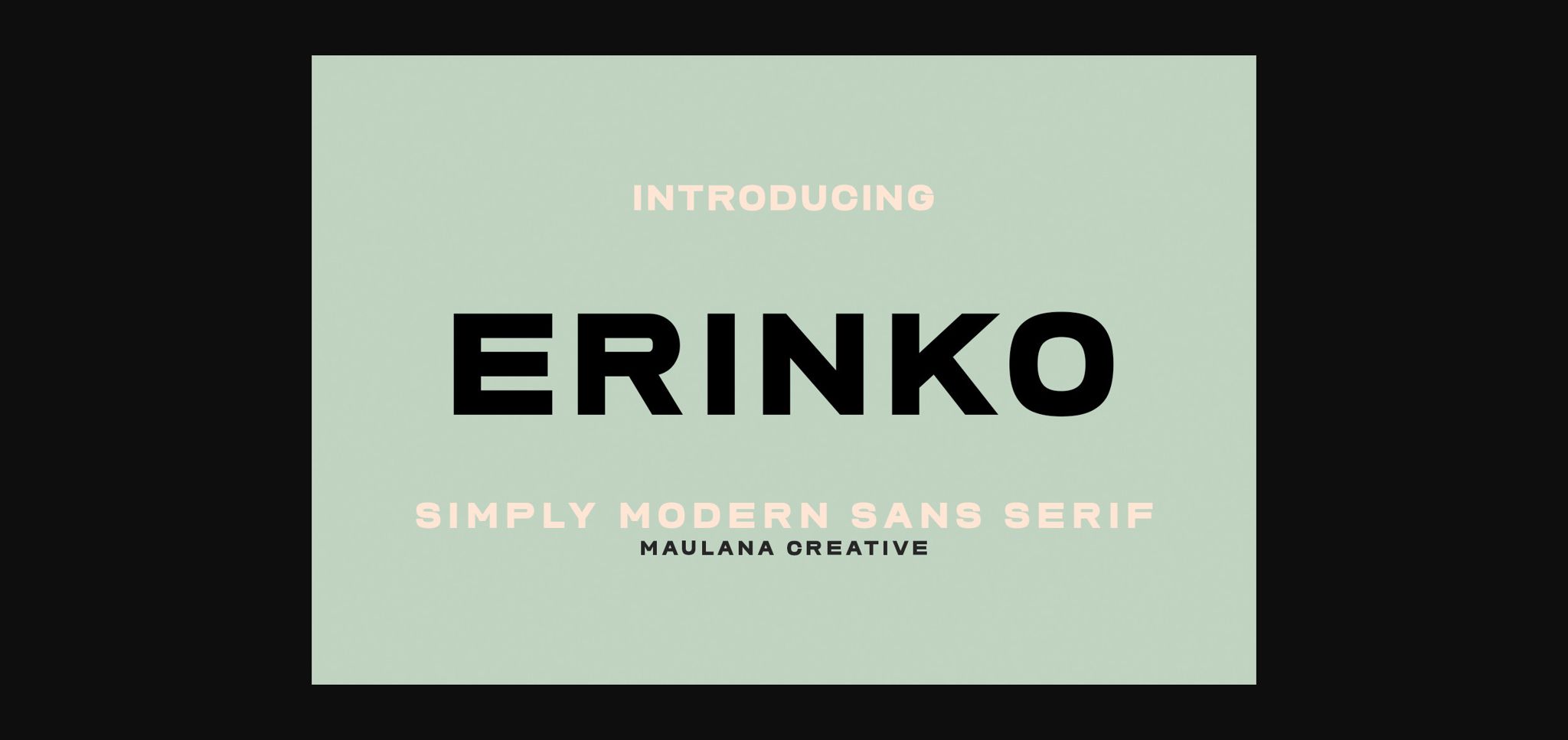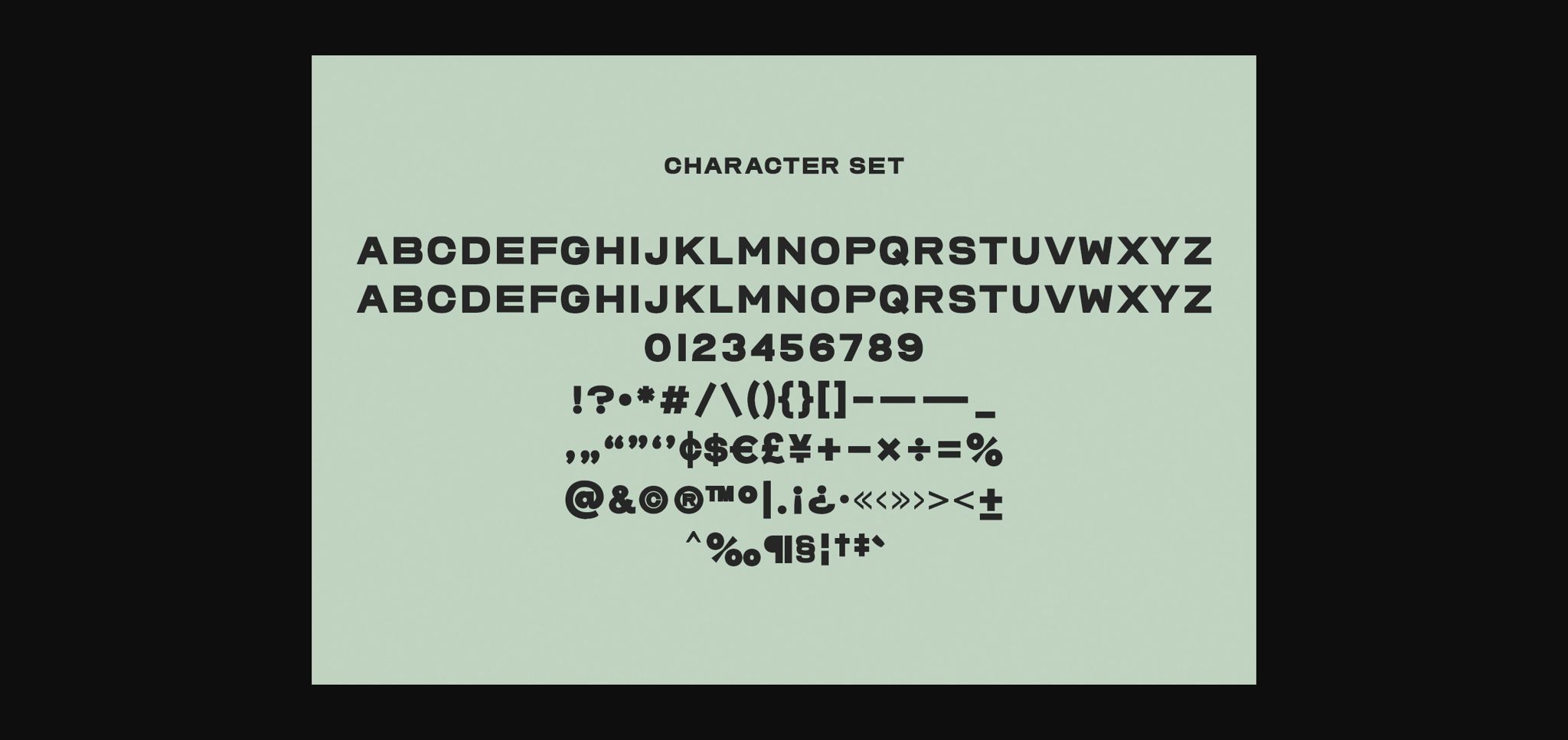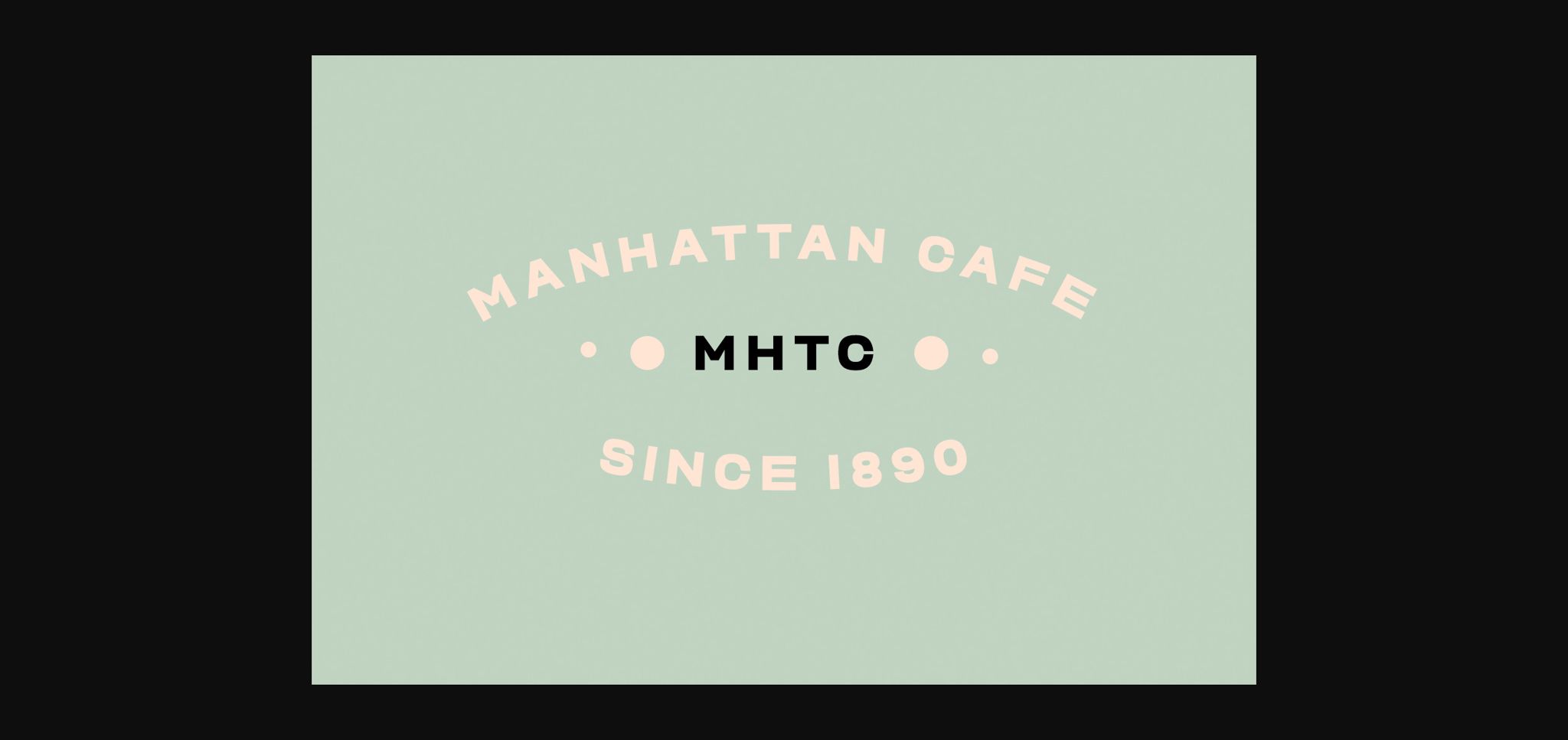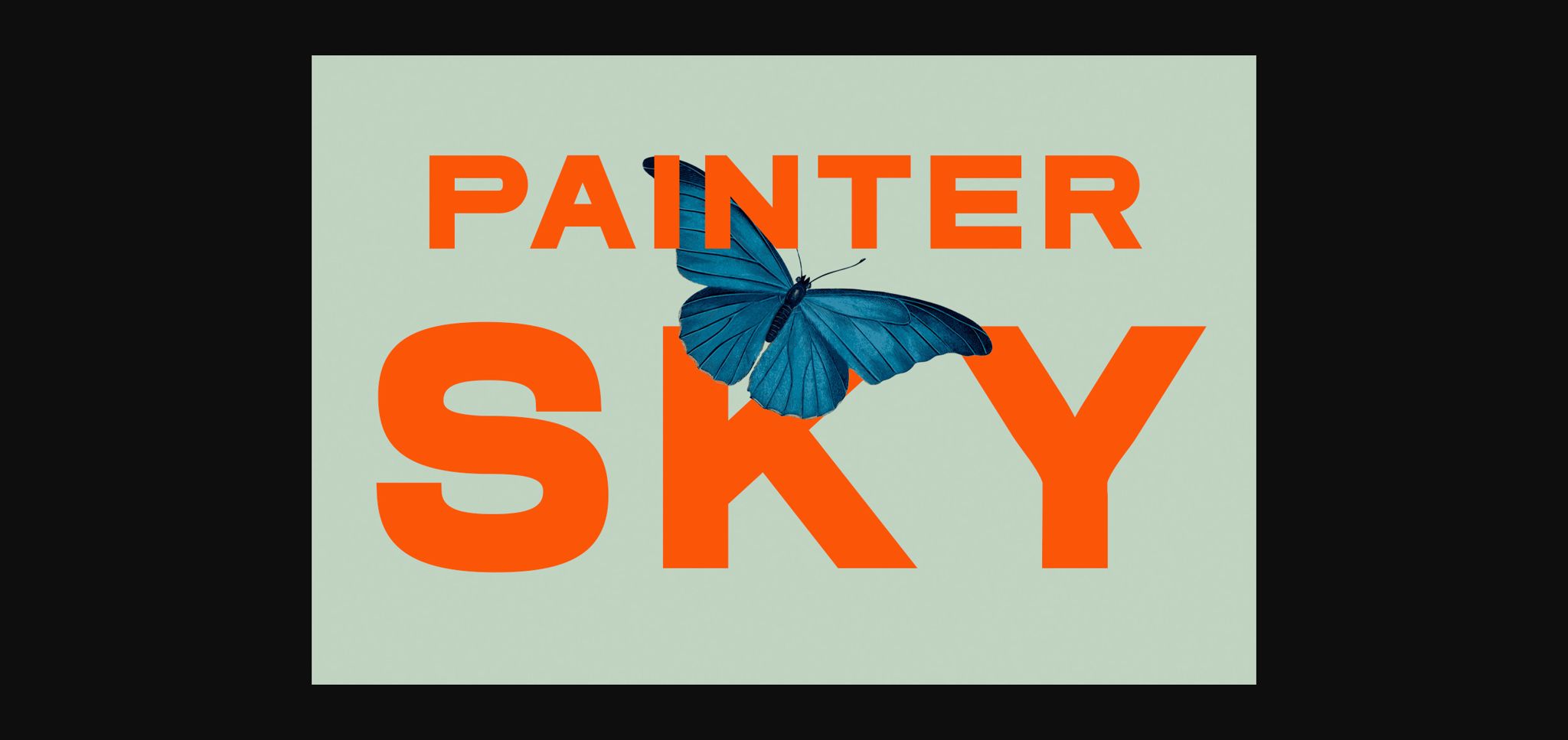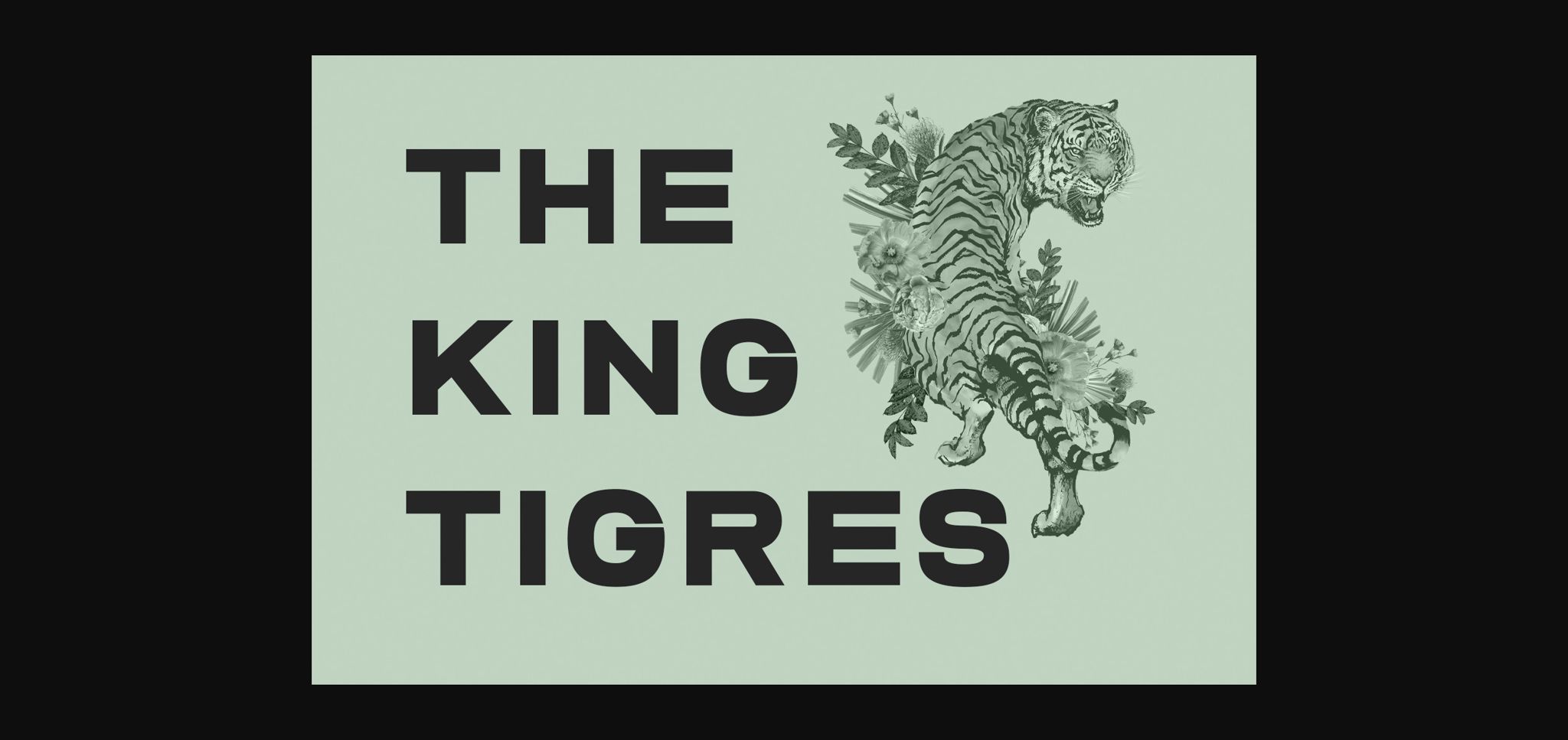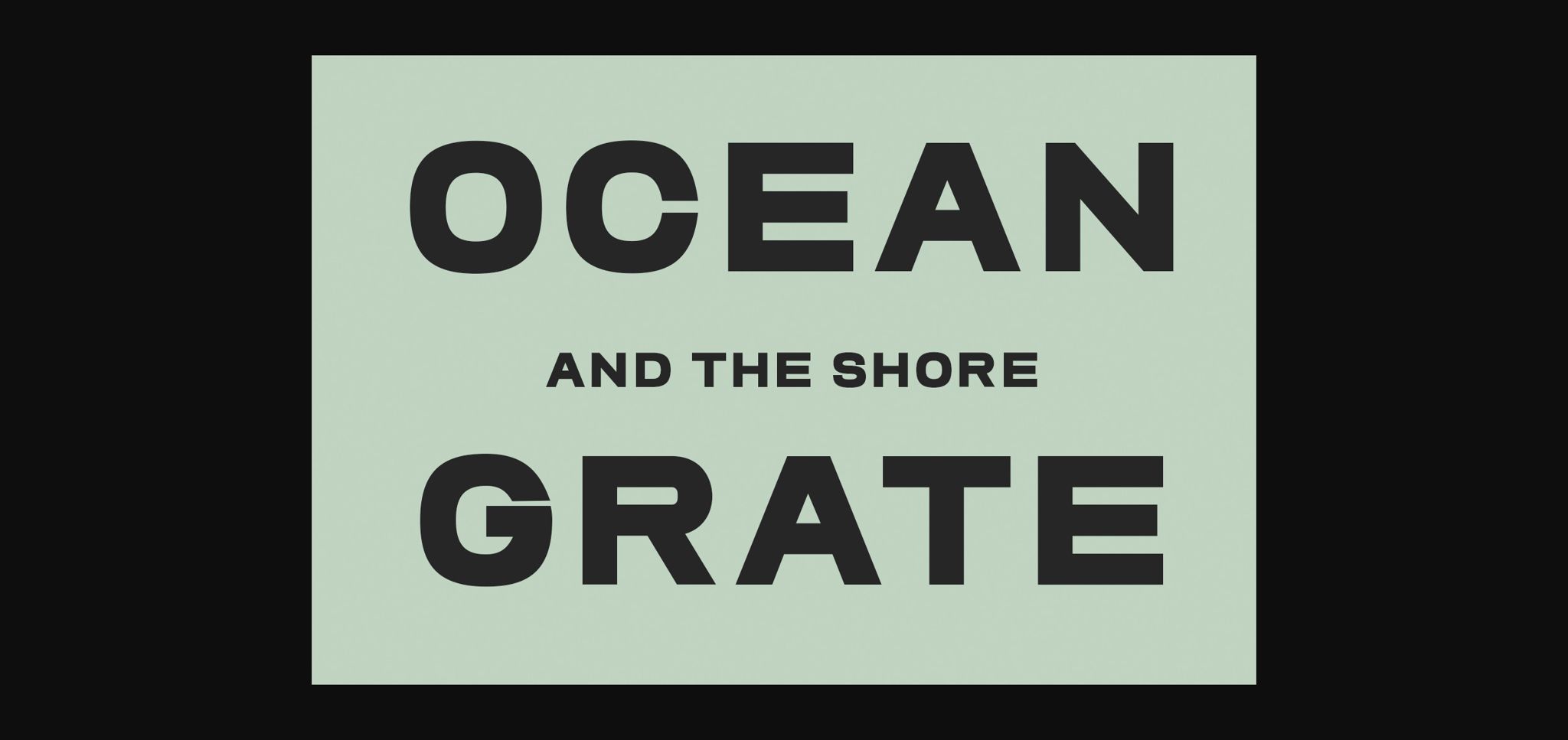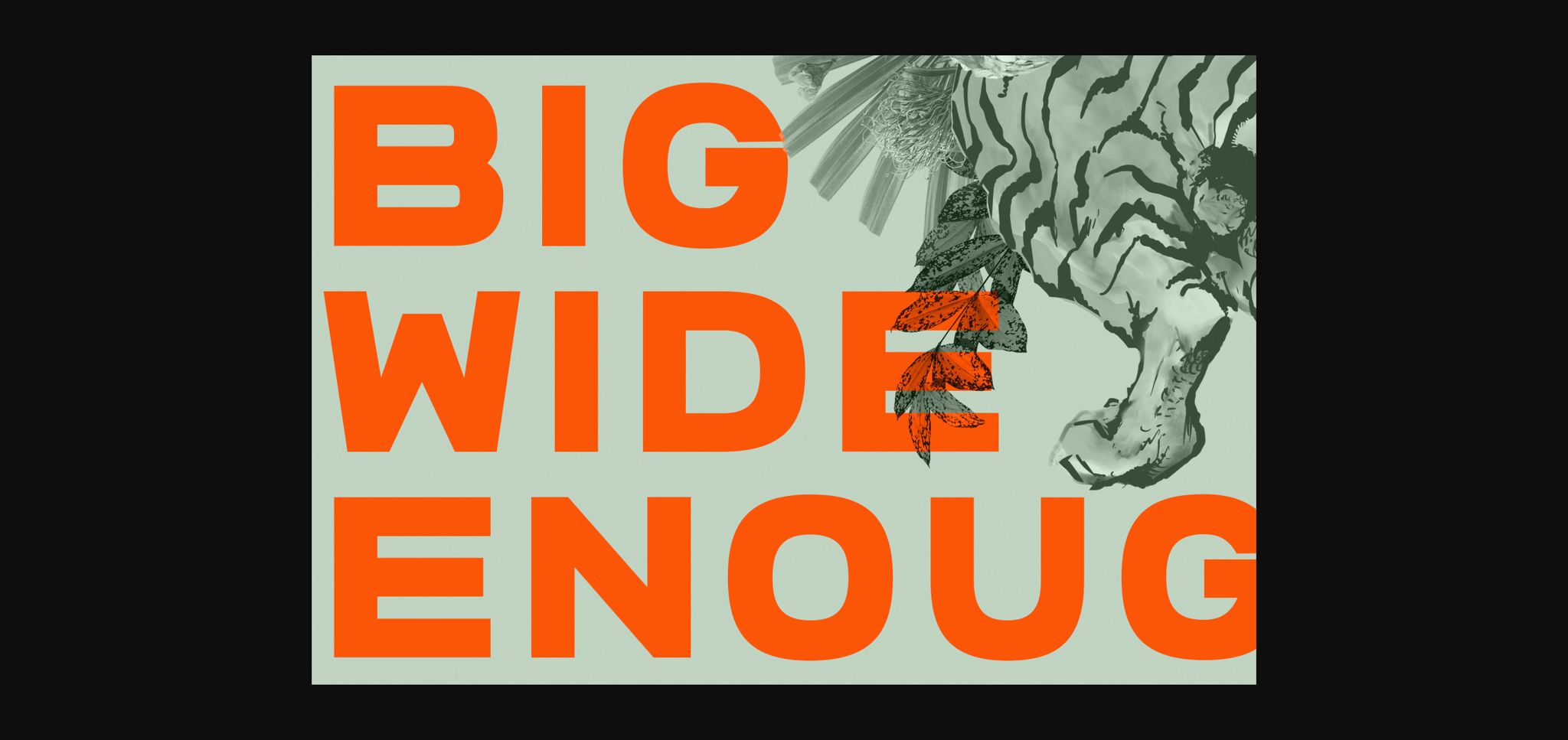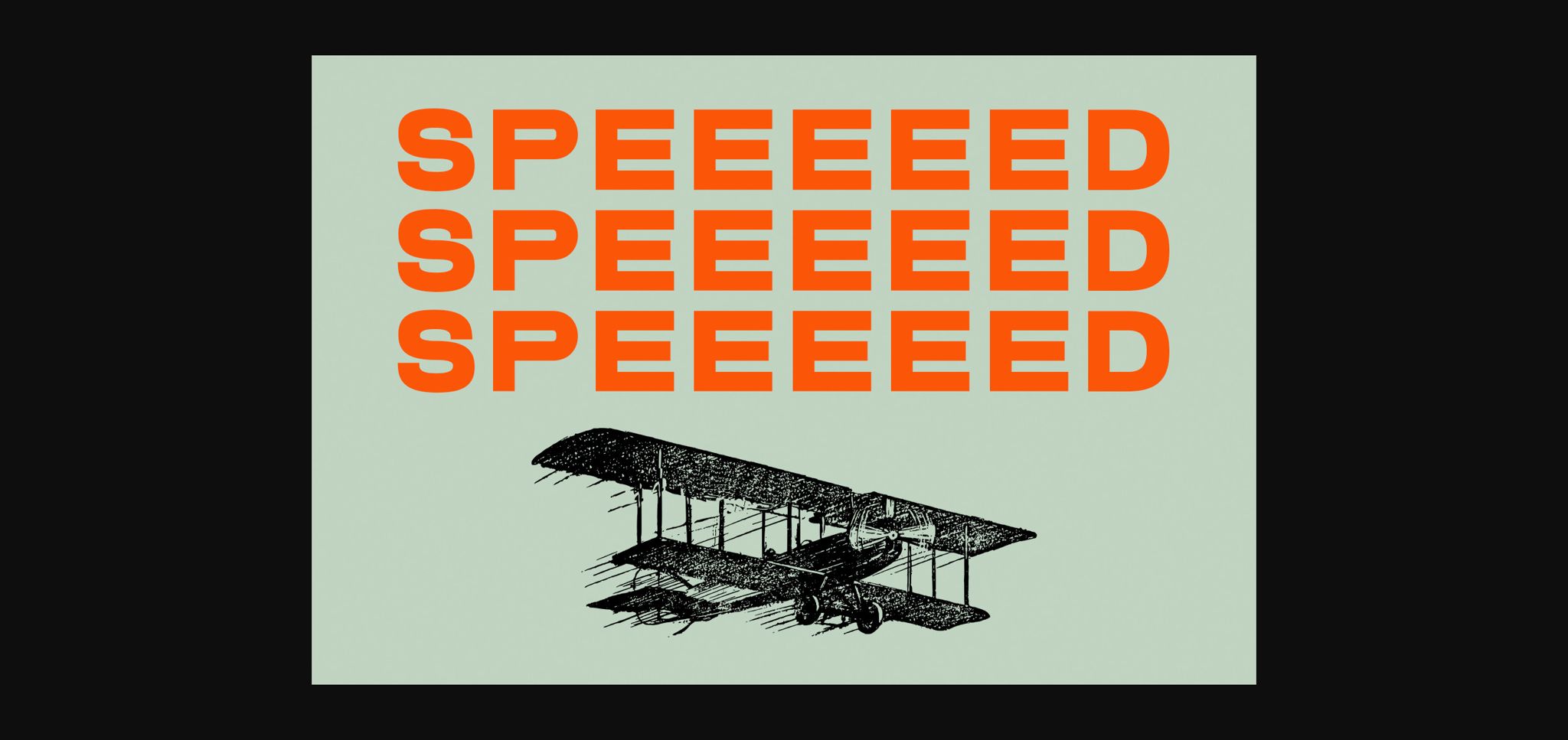
HomeSans Serif FontsErinko Font Sans Serif Fonts Erinko Font FacebookXPinterestWhatsApp 1 of 10 ... Erinko Font Poster 2... Erinko Font Poster 3... Erinko Font Poster 4... Erinko Font Poster 5... Erinko Font Poster 6... Erinko Font Poster 7... Erinko Font Poster 8... Erinko Font Poster 9... Erinko Font Poster 10... About Erinko Font Erinko is a simple semi-geometric sans serif font. Trendy and stylish, this font will elevate each of your creations. DOWNLOAD NOW People also explored Batikah Nighters Font Bebika Font Sheline Font Akazan Easter Gnome Font Serenity Script Font Fluro Font Body Font 299 0 TagsErinkoErinko Font Previous articleNetro Nescary FontNext articleCartinz Font LEAVE A REPLY Cancel reply Comment: Please enter your comment! Name:* Please enter your name here Email:* You have entered an incorrect email address! Please enter your email address here Website: Save my name, email, and website in this browser for the next time I comment. Personal Use Free Soulties Personal Use Free Read more about this font Miracles Personal Use Free Read more about this font Lion Teen Personal Use Free Read more about this font Airmole Personal Use Free Read more about this font BLOG Best Fonts for YouTube Videos: Make Your Thumbnails Stand Out Best Fonts for YouTube Videos: Make Your Thumbnails Stand Out Choosing the right font can make a massive difference in how your YouTube videos perform.... Fonts That Capture the Spirit of New York City Free Fonts Risk: Why Free Fonts Can Be Dangerous for Designers Using Fonts in Digital Marketing: Tips to Strengthen Your Brand Identity